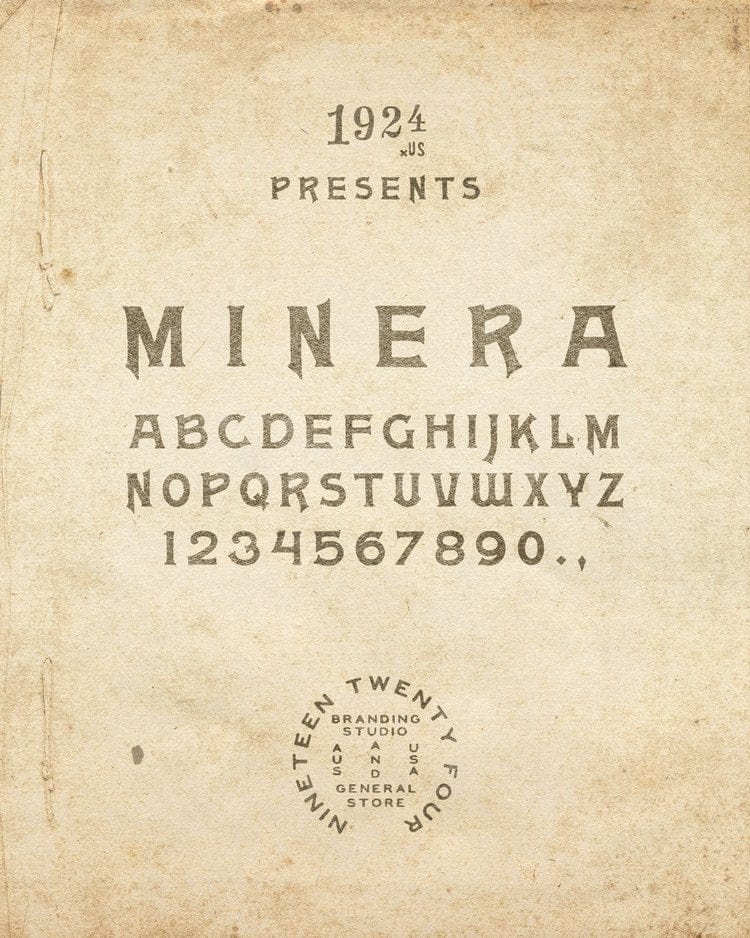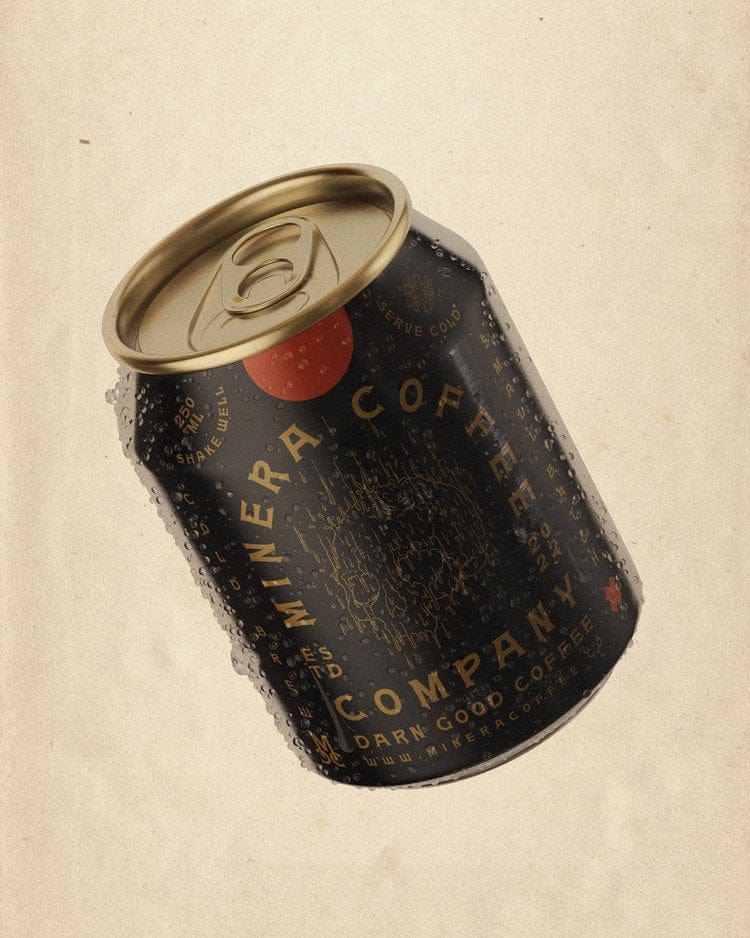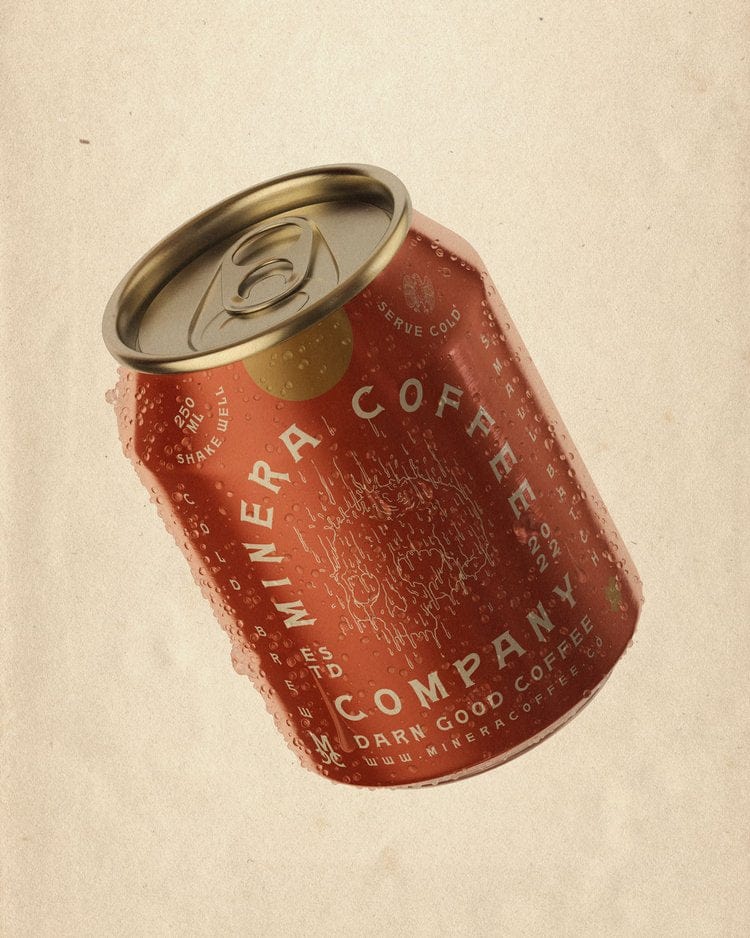
Minera Font by 1924us
Designed as an evocation of the monolithic 19th-century mining industries, Minera is a bold, rough and sharp font inspired by antique industrial advertising and stocks.
Featuring exaggerated ascenders + descenders and sharp, blocky serifs, this display font will work perfectly in your next creative project, adding uniqueness and own-ability to that logo!!
Designed and hand-drawn by the 1924us Studio.